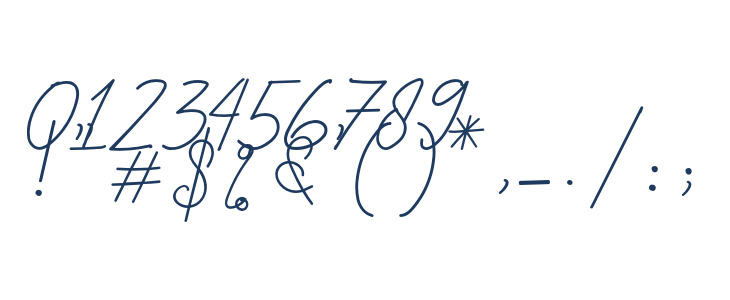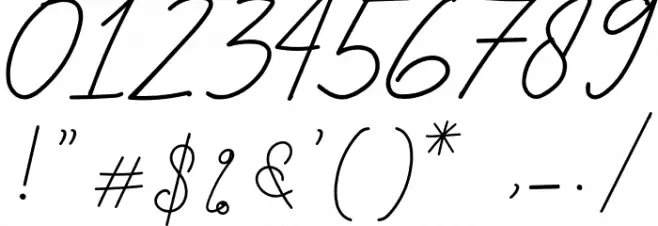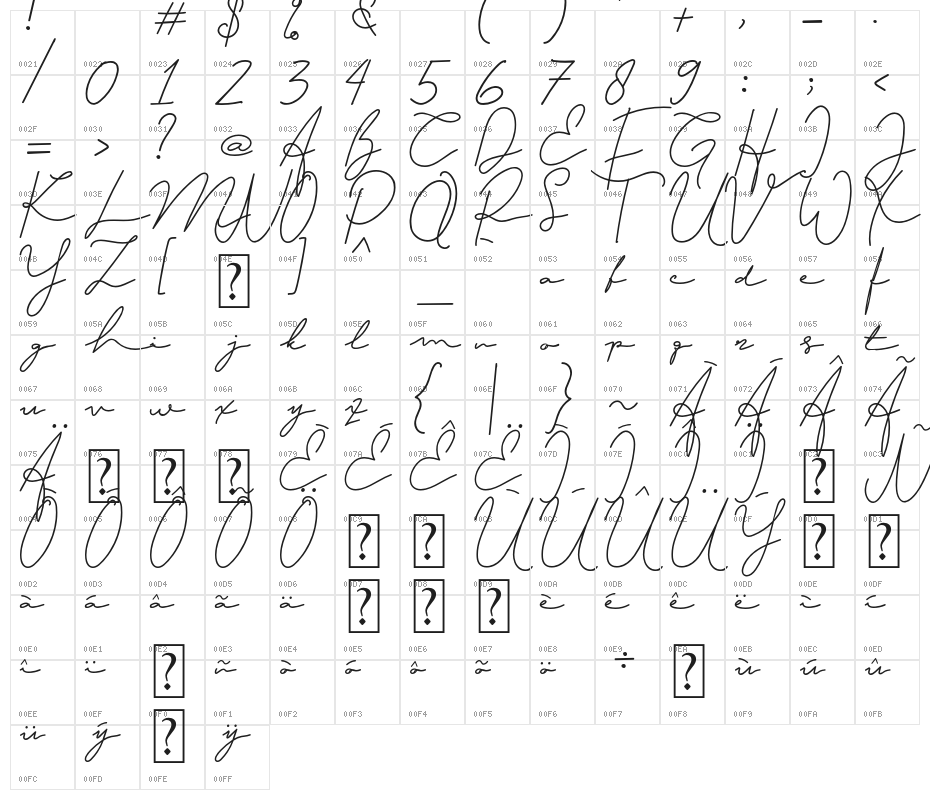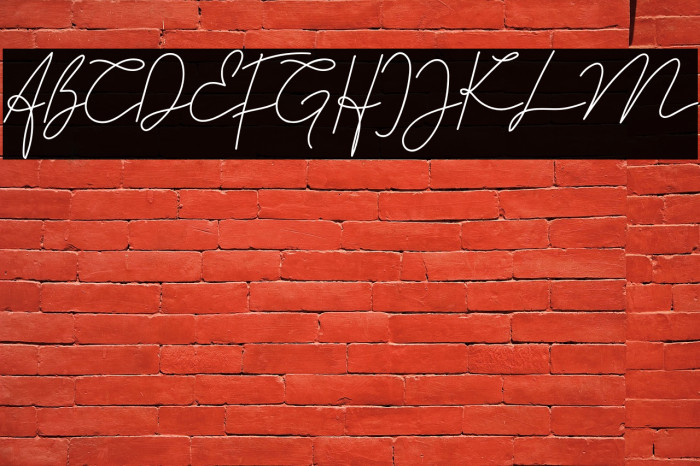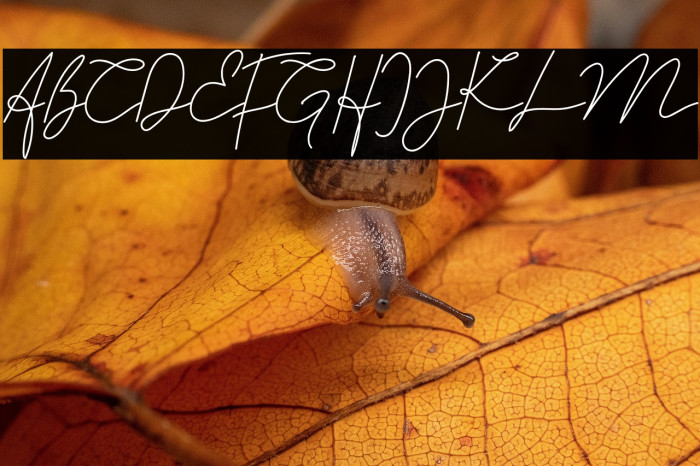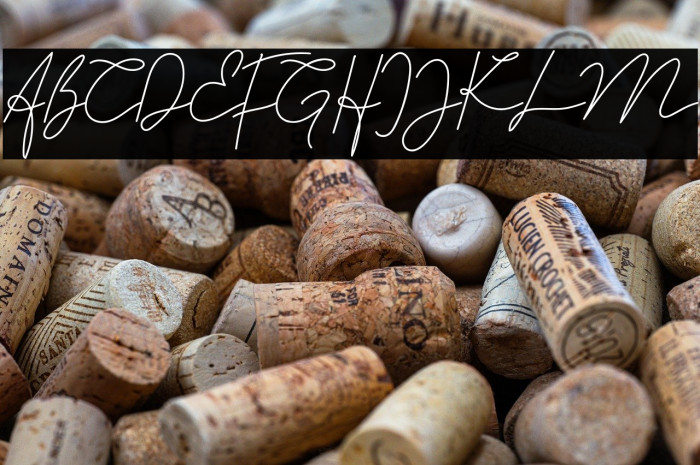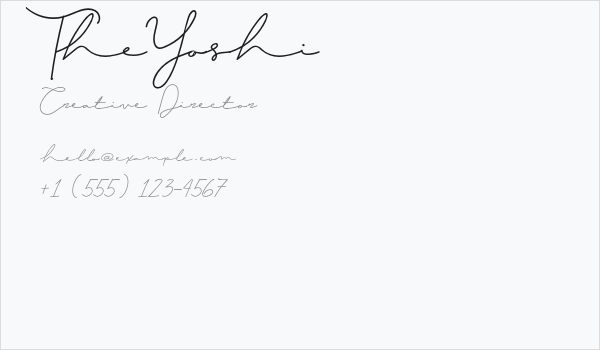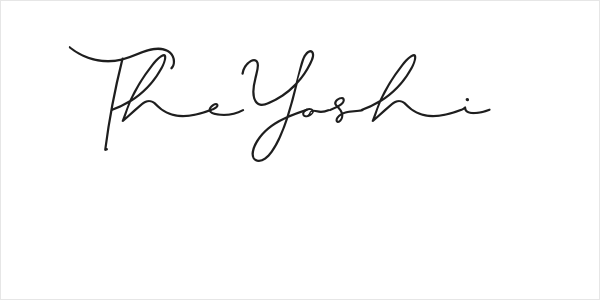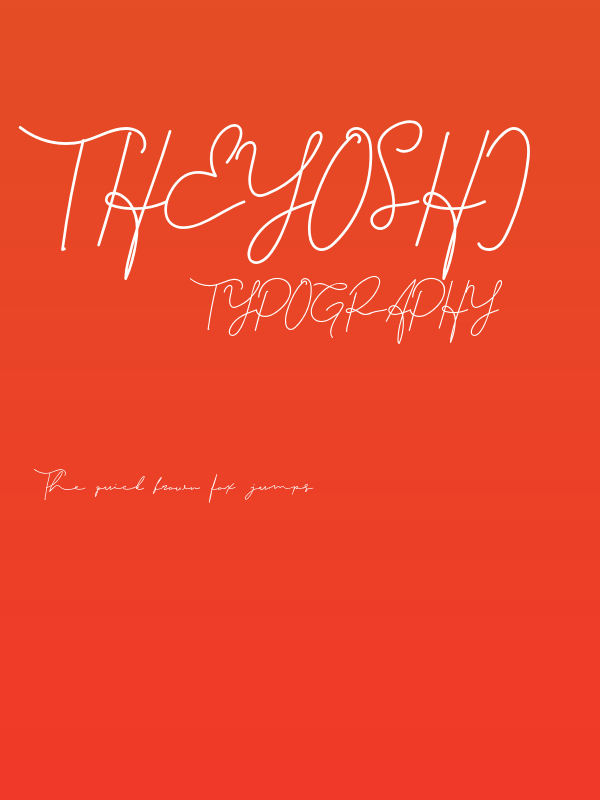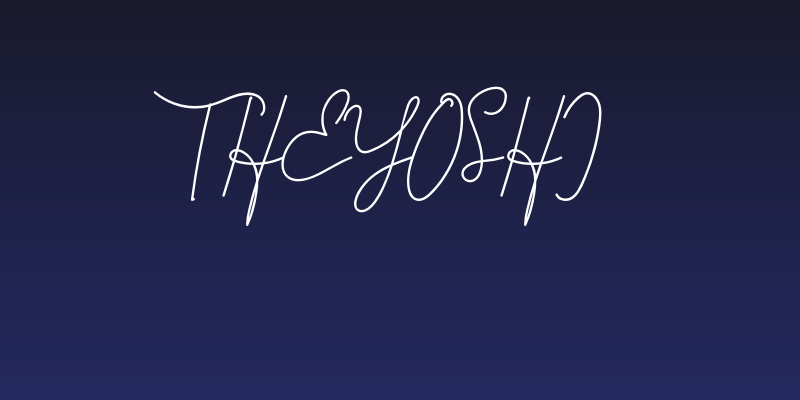
TheYoshi Font
TheYoshi Description
This font features a fluid, cursive style that mimics elegant handwriting. The uppercase and lowercase letters flow seamlessly, with a slight slant that adds a dynamic feel. The characters are connected, creating a continuous script that is both sophisticated and approachable. The numerals maintain the same cursive style, ensuring consistency across all characters. Special characters are integrated smoothly, maintaining the overall aesthetic. The thin strokes and consistent line weight contribute to a delicate appearance, making it suitable for formal and creative applications.
| Proposed Projects | Ideal for wedding invitations, personal branding, greeting cards, and elegant stationery. |